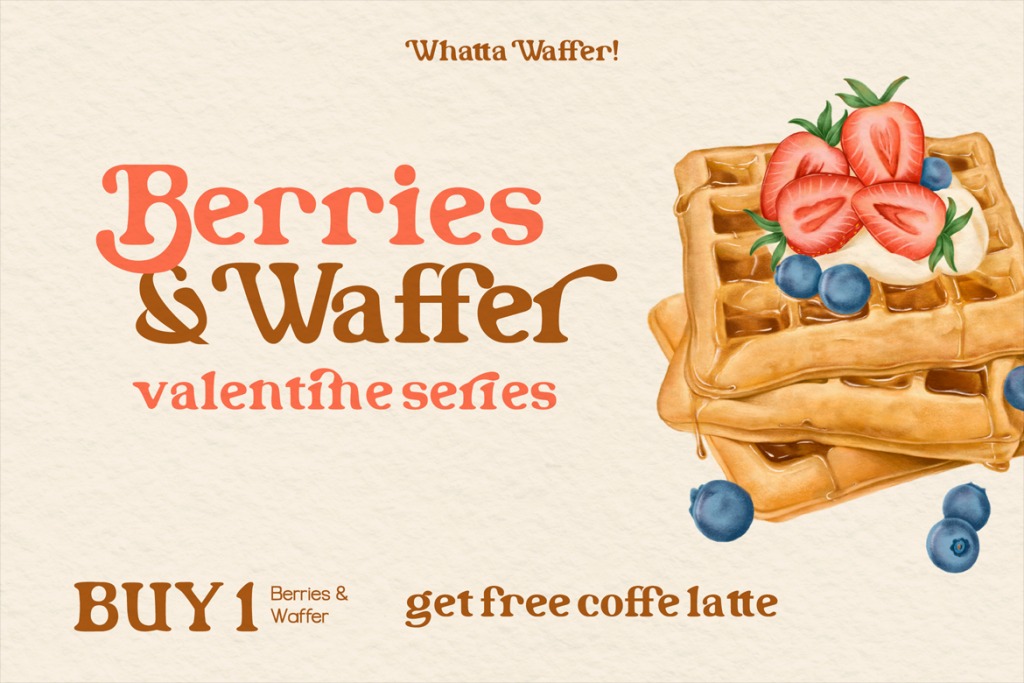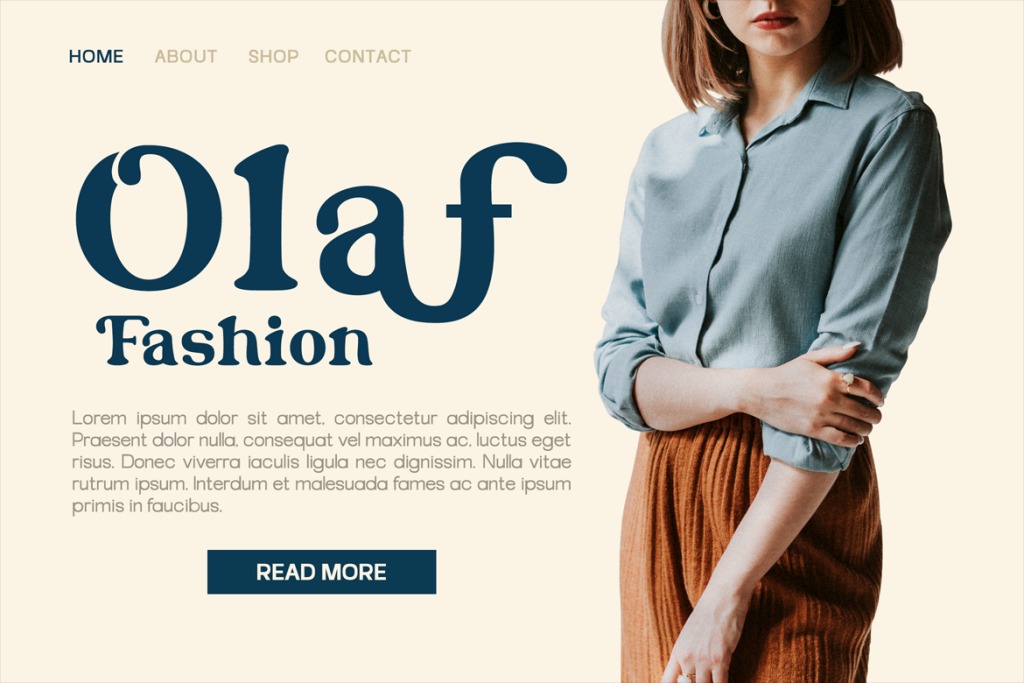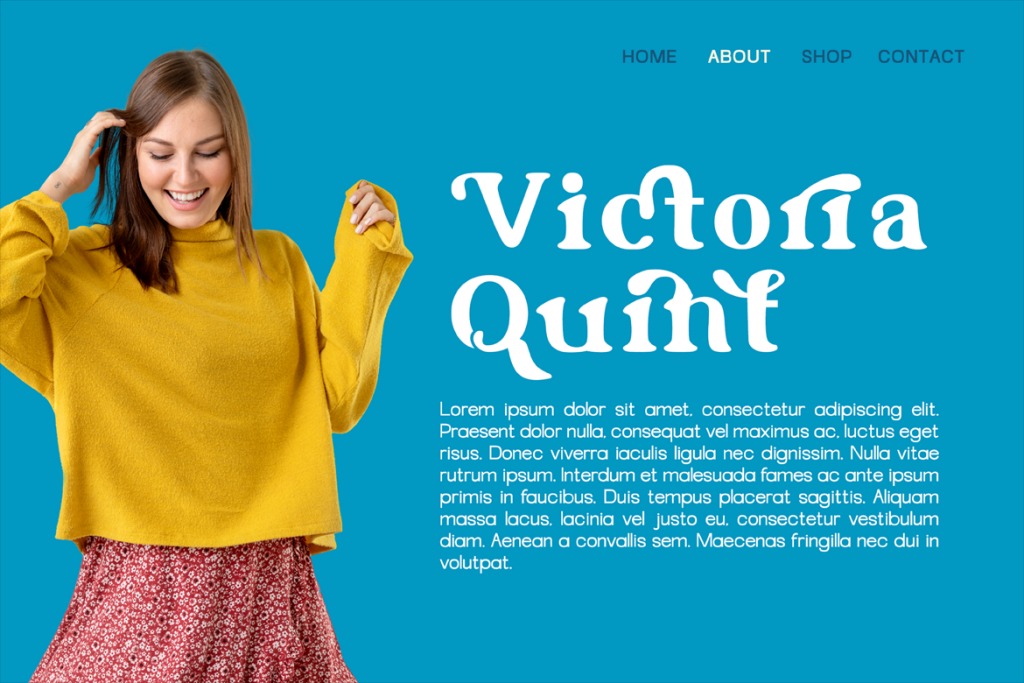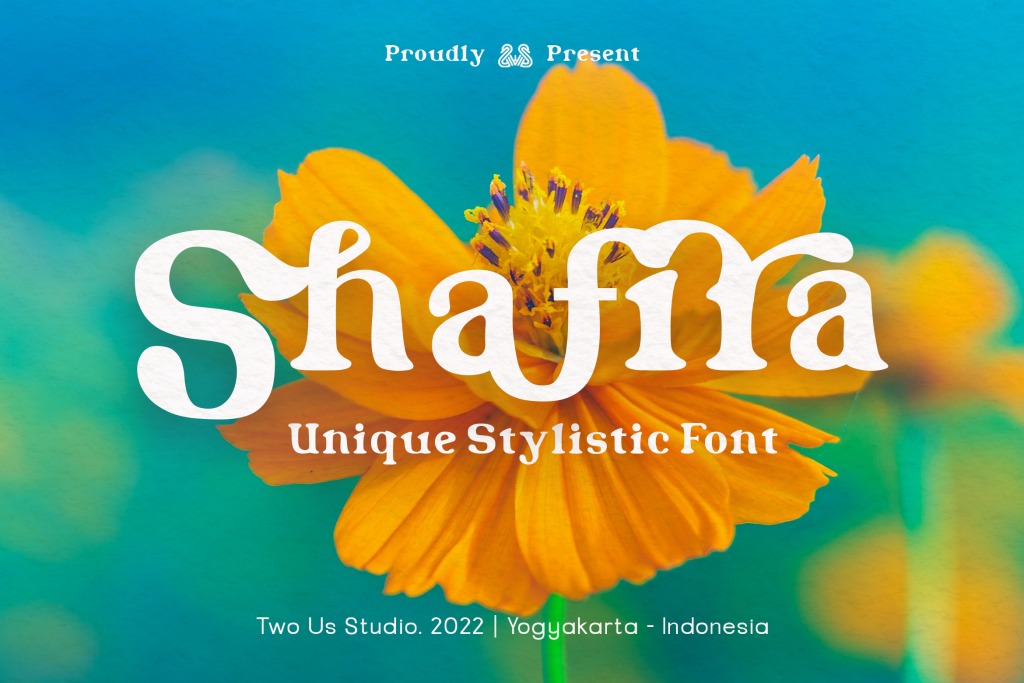
Shafira Font
Shafira Serif Font
It’s a groovy, bold, playful, retro display typeface crafted & designed by twousstudio. This creative and fun font can easily become your favorite. It works great on books, magazines, social media posts, invitations, and so much more! So add this to your creations and take your designs to the next level!